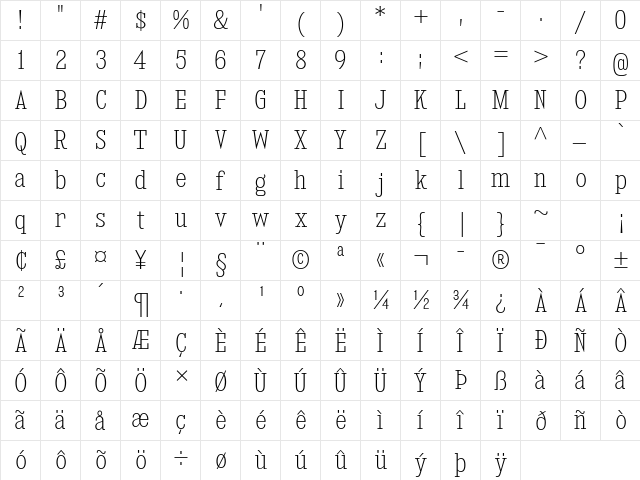
Kingsbridge Condensed ExtraLight
Design Context for Kingsbridge Typeface
Kingsbridge is a composed and adaptable typeface that performs quietly and consistently across a wide range of design contexts. Its slender proportions lend an understated elegance to any composition. The condensed width makes it efficient for tight spaces without sacrificing legibility.
Pro Tip: Pair Kingsbridge with a font of contrasting weight or personality to build a more expressive typographic hierarchy.